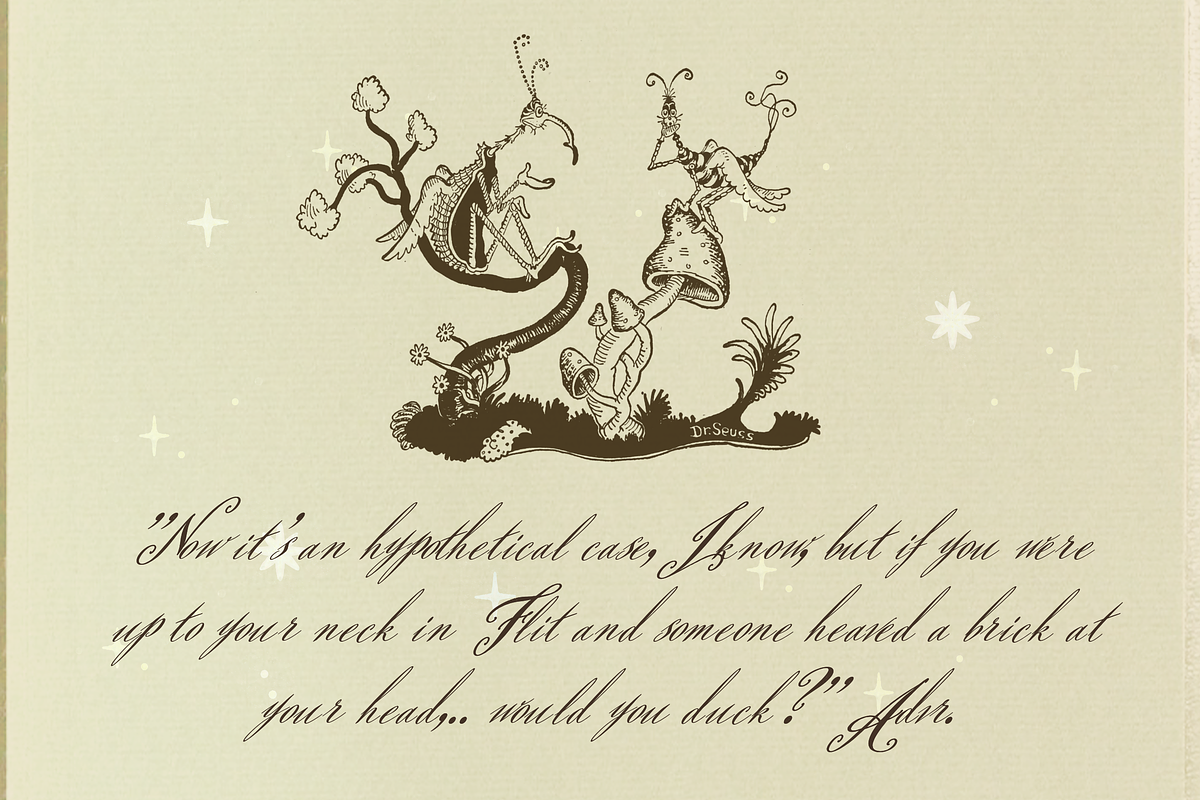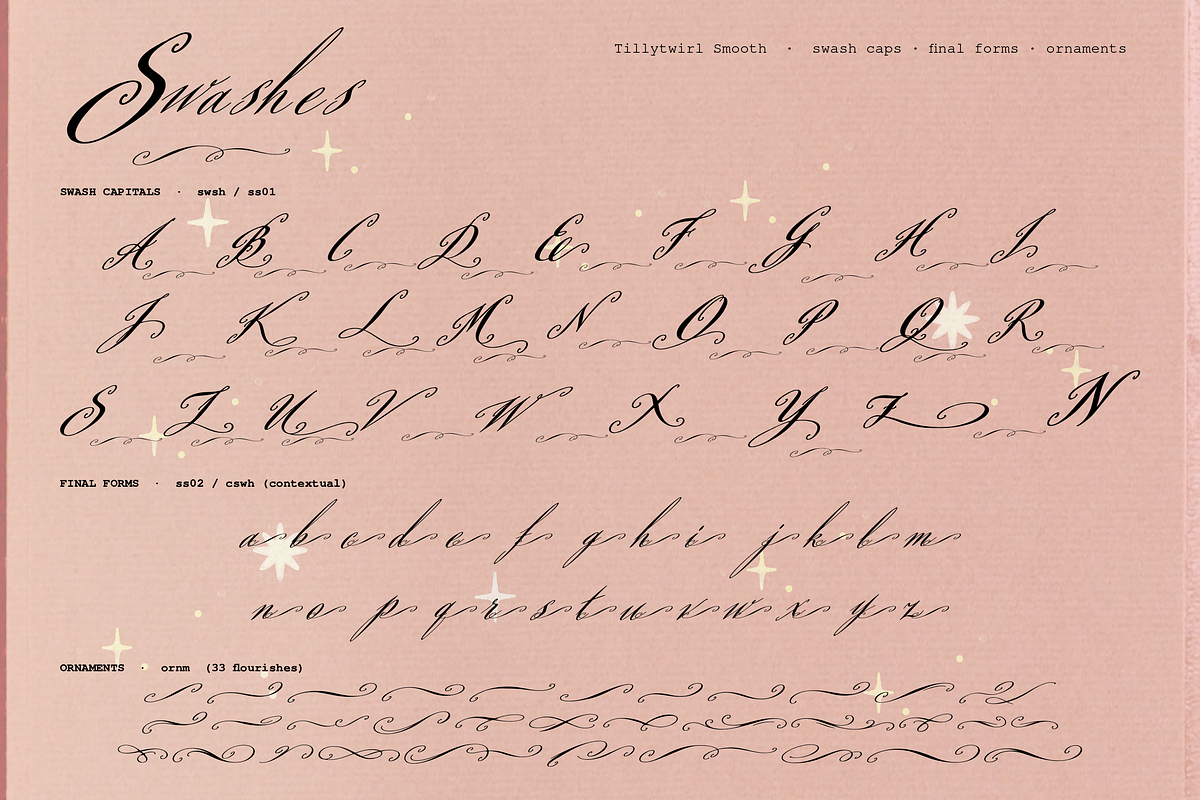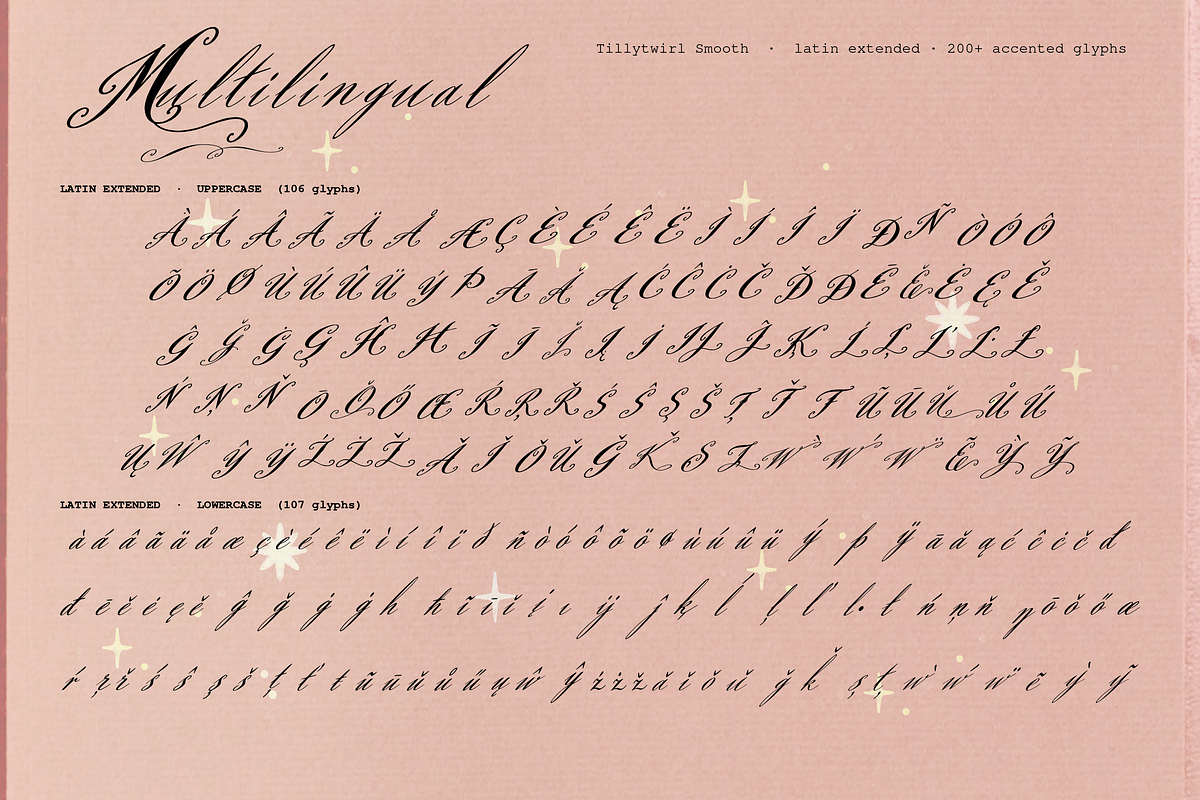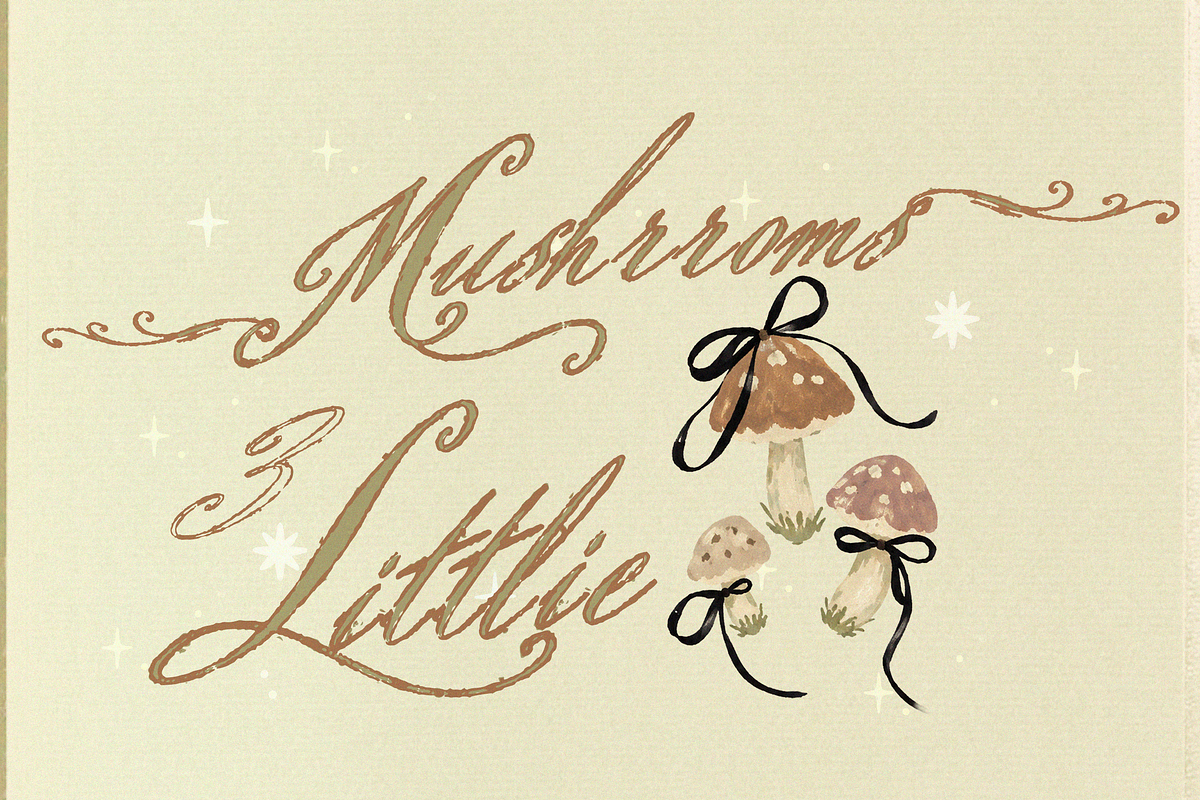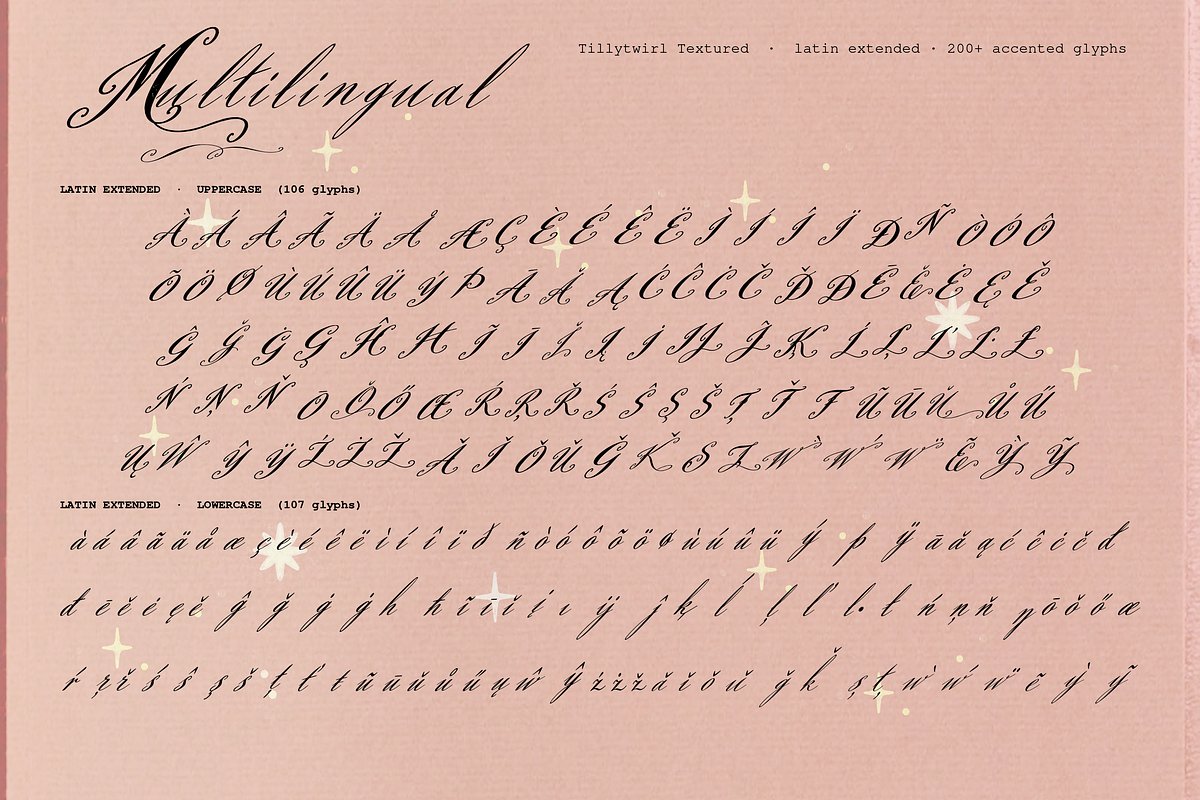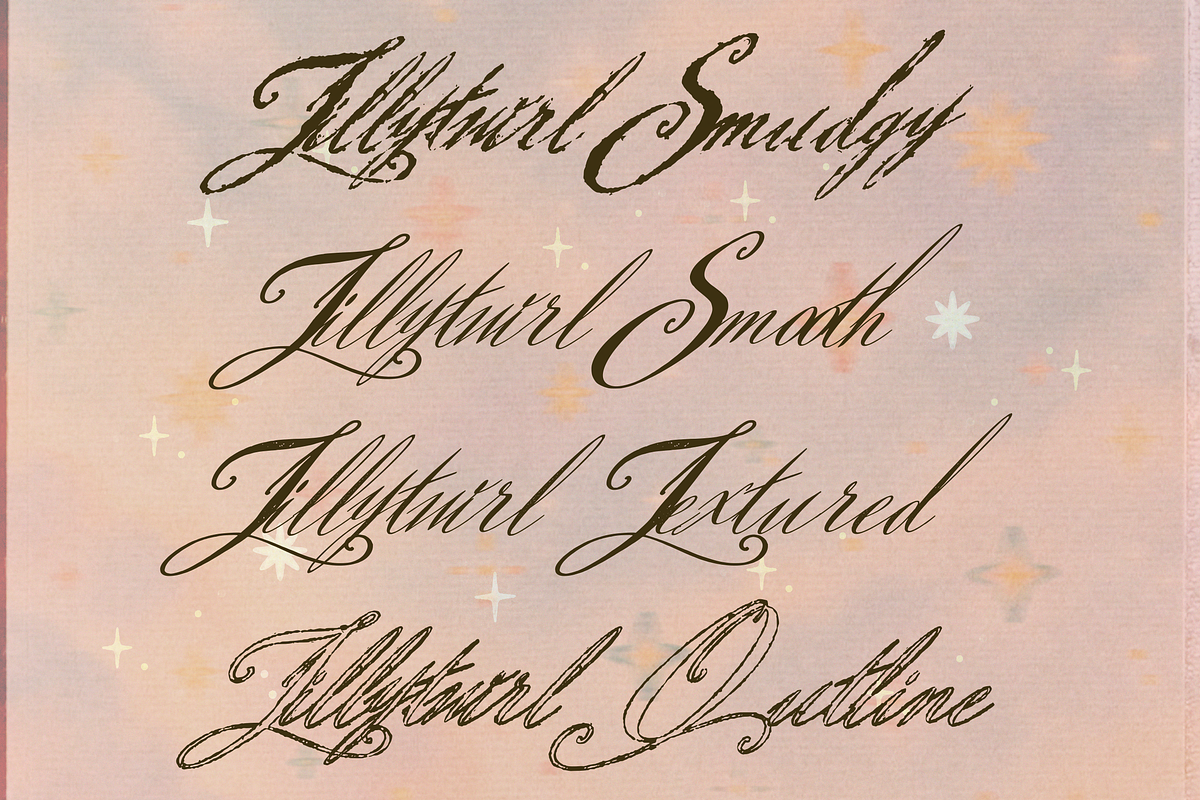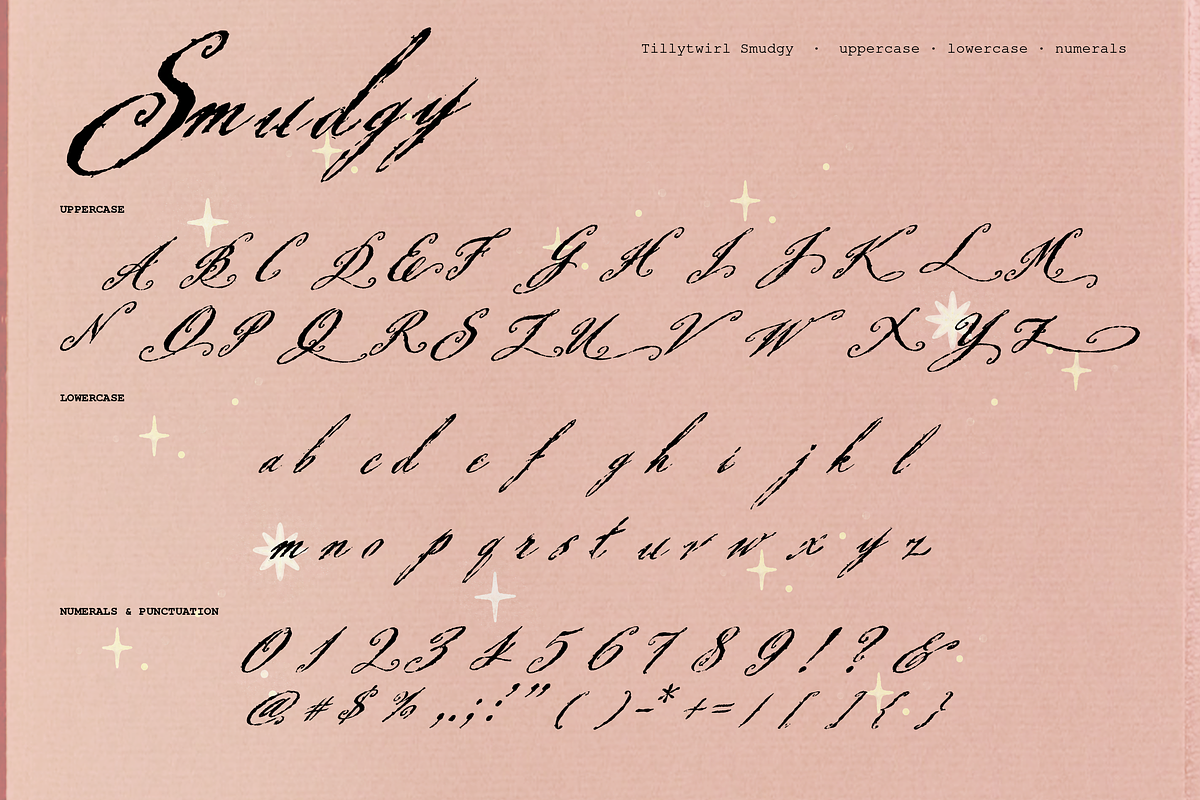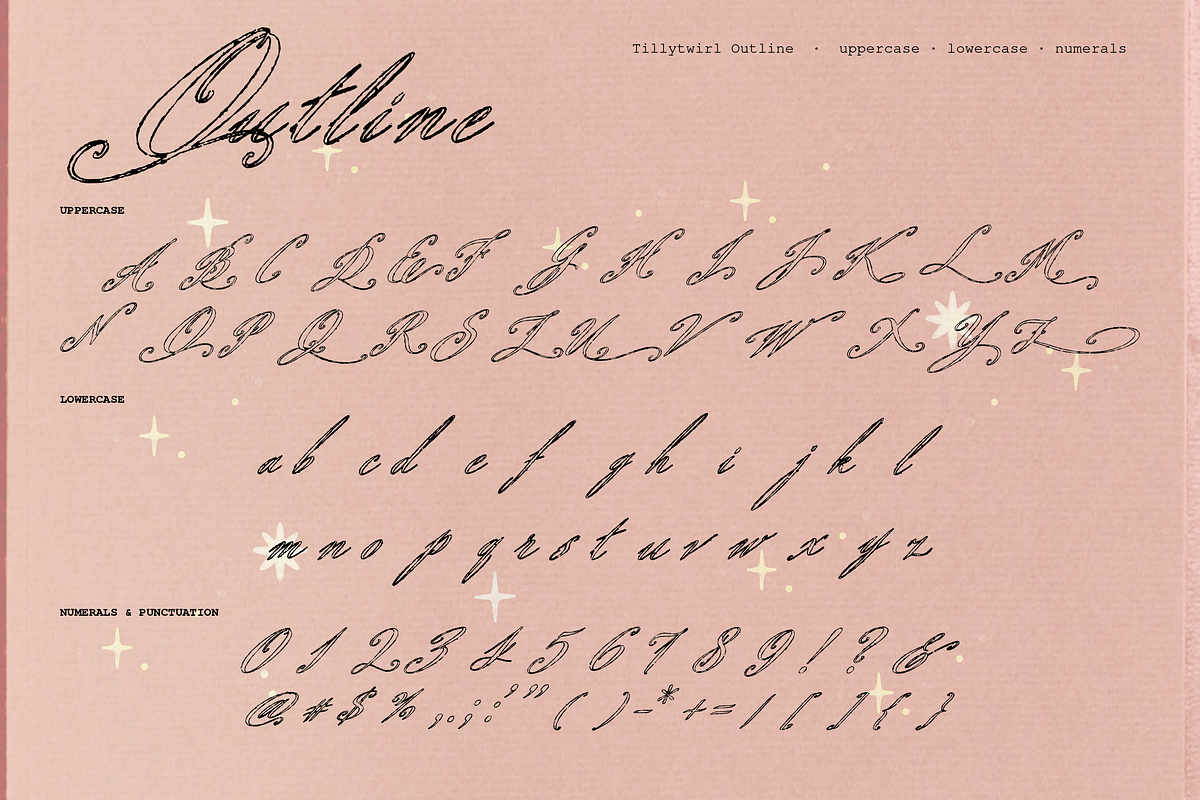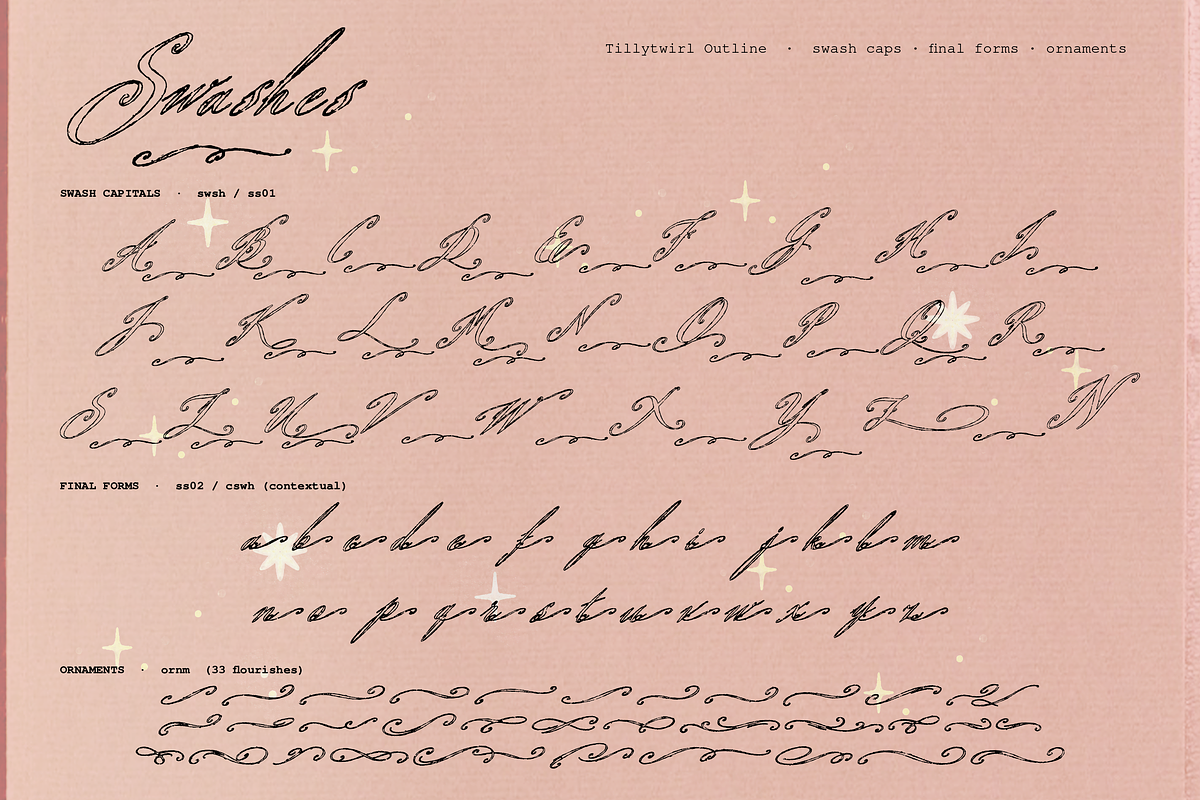
Tillytwirl - Whimsy Hand drawn Font
Tillytwirl – Whimsical Swash Script Font Family
Made for designs that need a little more movement, charm, and mischief,
You’ll also find 26 swash capitals, 26 final-form lowercase characters, 33 ornaments and flourishes, discretionary ligatures, IJ/ij ligatures, kerning, and Latin Extended language support with 213 accented glyphs.
Tillytwirl works beautifully for editorial layouts, book covers, romantic branding, packaging, invitations, posters, album artwork, fashion graphics, stationery, product labels, whimsical illustrations, vintage-inspired designs, and large expressive headlines.
It is a font for when ordinary script feels a little too well-behaved.